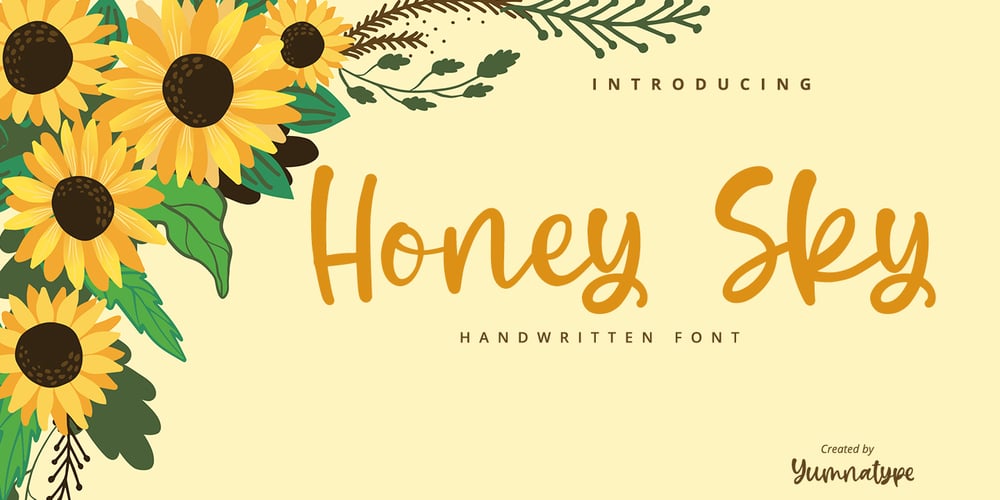
Honey Sky Font Family was designed by Donis Miftahudin and published by Yumna Type. Honey Sky contains 1 styles and family package options. Honey Sky is a handwritten font with a natural and unique design will make your project more beautiful. The font is suitable for your branding project, printing, logos dan wedding.Features: Standard Ligatures Alternates Multilingual Support PUA encoded Numeral and Punctuation by Yumnatype